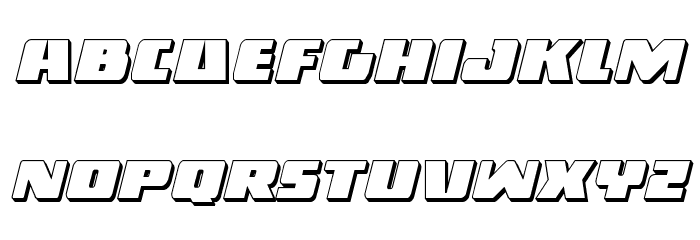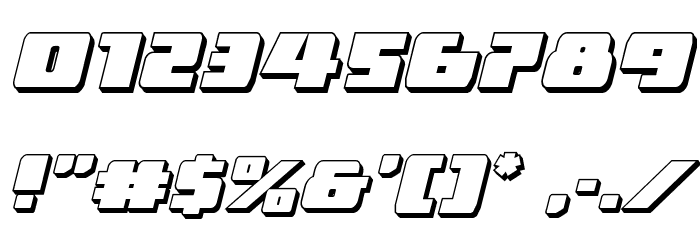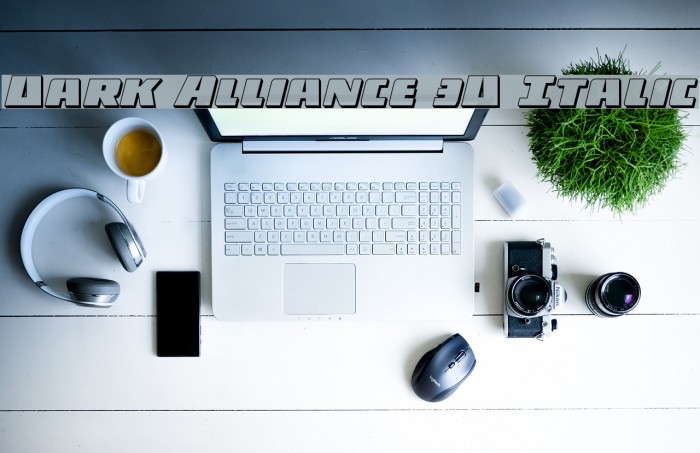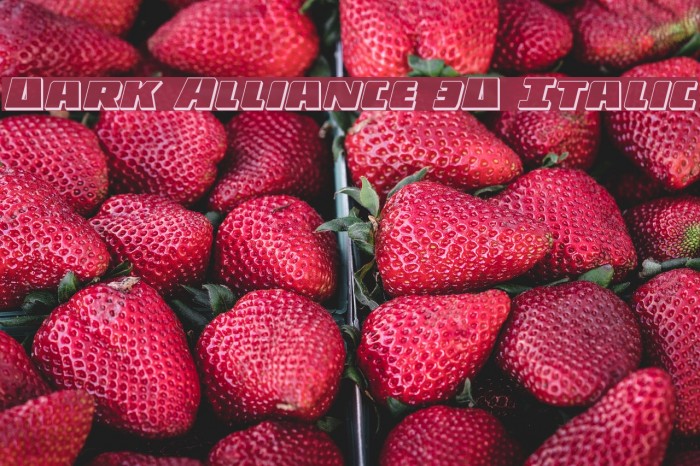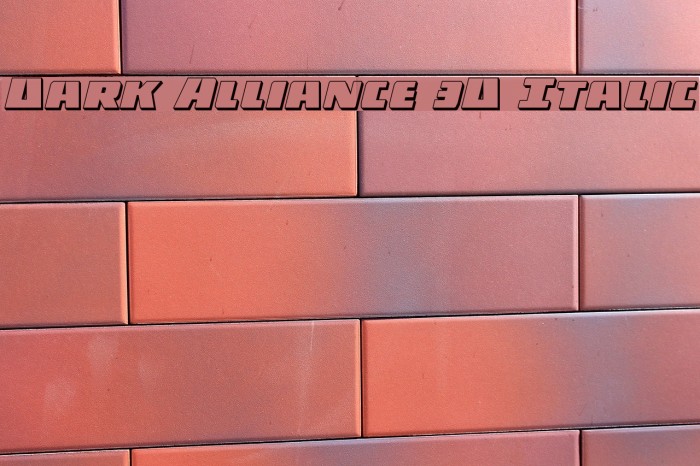
Dark Alliance 3D Italic Font
This font features a bold, three-dimensional design with a distinct italic slant, giving it a dynamic and futuristic appearance. The characters are outlined, creating a shadow effect that enhances the 3D illusion. The uppercase letters are prominent and angular, with sharp edges and a geometric style. The numbers and special characters maintain the same bold and structured form, ensuring consistency across all glyphs. This font is particularly eye-catching and is designed to stand out, making it ideal for impactful visual statements.
A bold, 3D italic font with a futuristic and dynamic style.
- Proposed Projects: Ideal for video game titles, movie posters, sci-fi themed projects, and any design requiring a strong, modern impact.